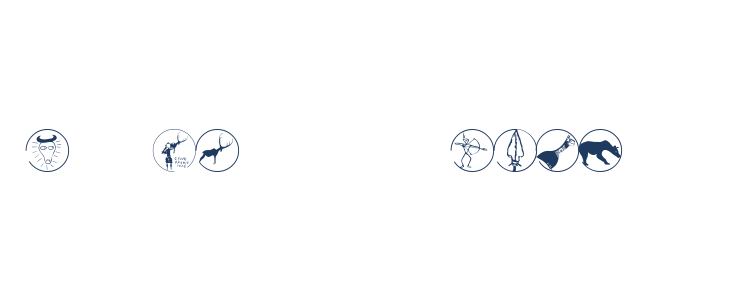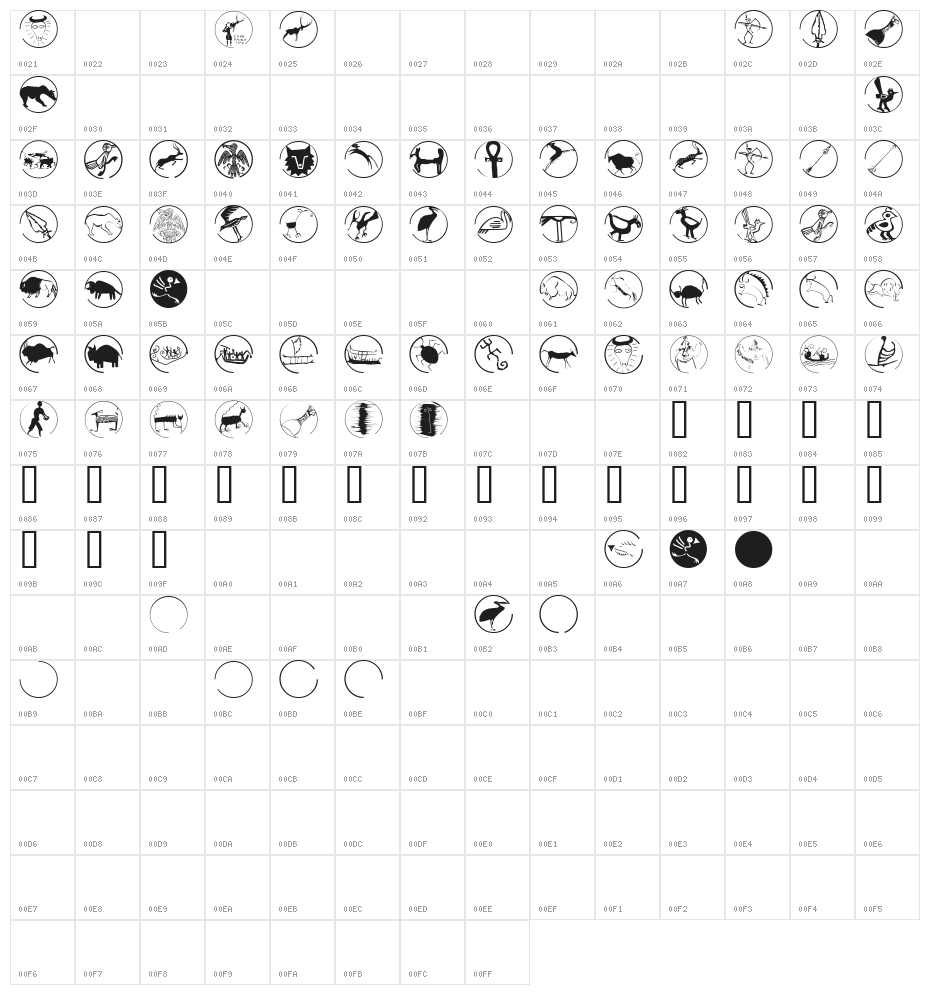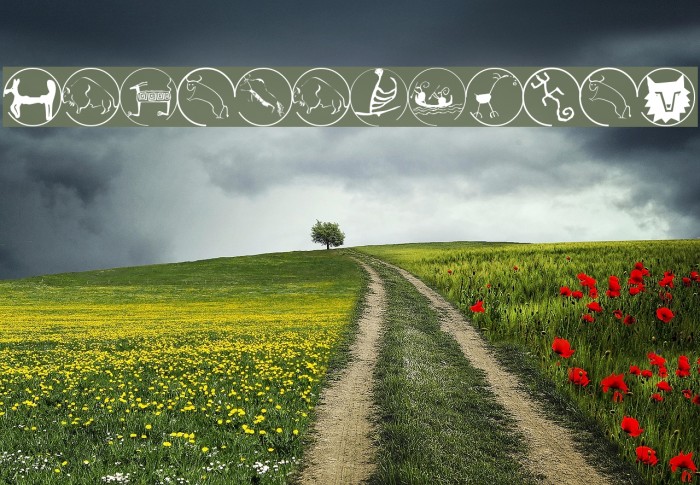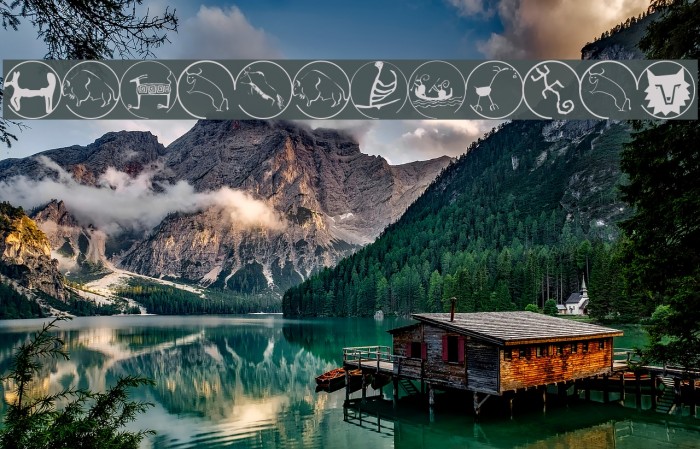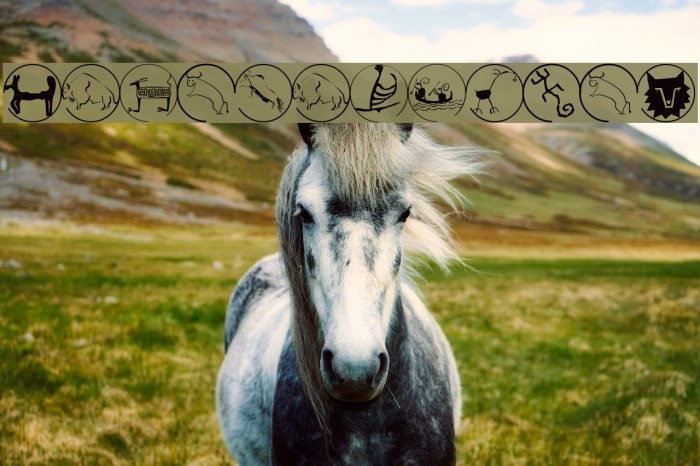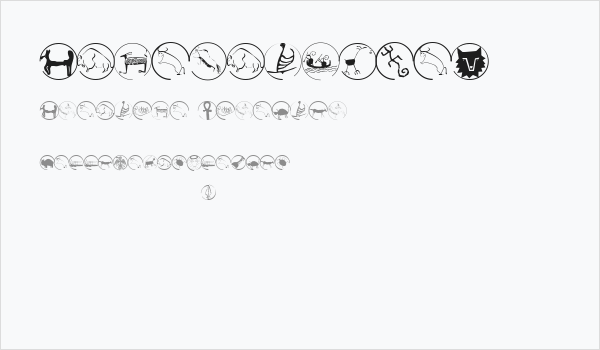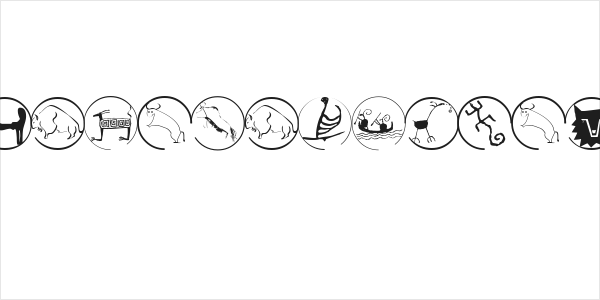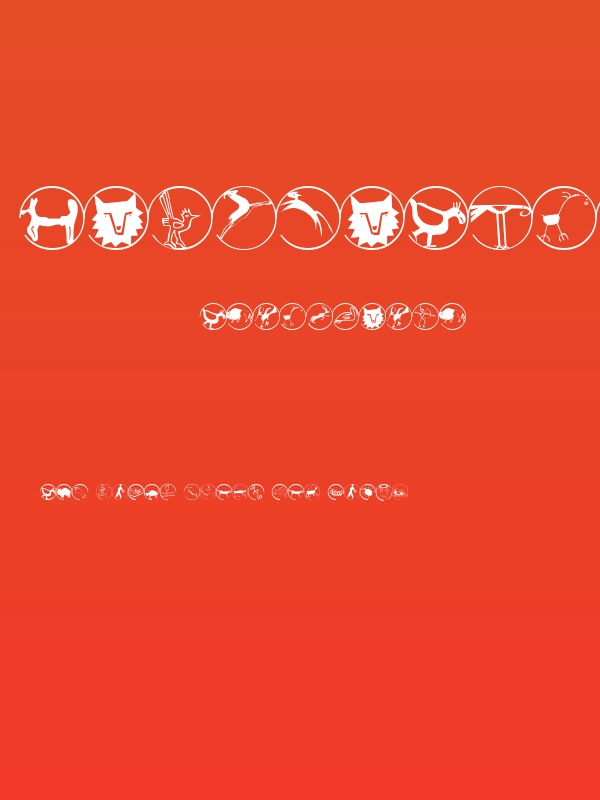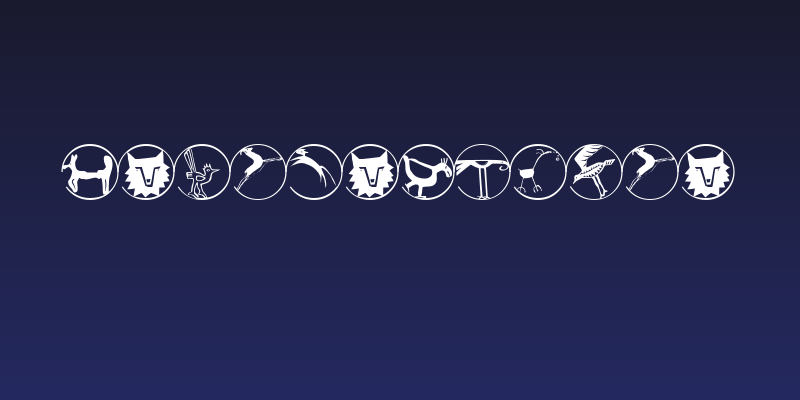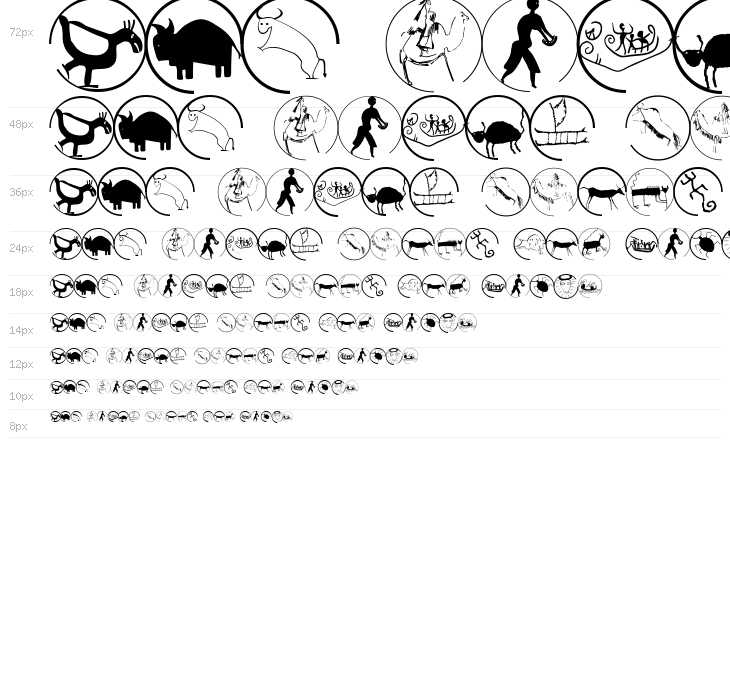
This unique set of symbols features a variety of stylized animal and abstract shapes enclosed within circles. Each character is distinct, showcasing intricate designs reminiscent of ancient cave paintings or petroglyphs. The symbols are highly decorative, with each one telling its own story through the depiction of animals, human figures, and abstract forms. The overall aesthetic is both primitive and artistic, capturing a sense of history and culture. The use of bold lines and detailed illustrations makes each symbol stand out, offering a visually engaging experience.
| Use Case | Logos, Artistic projects, Educational materials |
| Proposed Projects | Ideal for projects that require a historical or cultural theme, such as educational materials, museum exhibits, or artistic installations. These symbols could also be used in branding for products related to nature or history. |